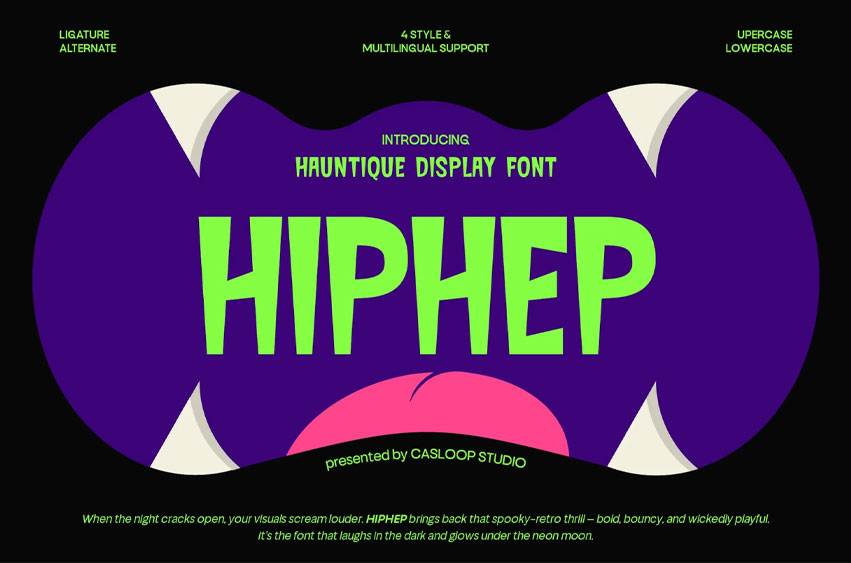
Hiphep Font
Hiphep Font is a haunted bold display font that brings spooky charm and monster energy into your designs. With rough textures, expressive angles, and quirky imperfections, HIPHEP feels alive — like a trick-or-treat spirit dancing under the moonlight. It’s bold, loud, and just the right amount of creepy, perfect for Halloween visuals, horror branding, and anything that loves a little chaos. Each letter in HIPHEP carries attitude — especially the R, P, and K — designed to look like cheeky little creatures. The font’s experimental vibe makes it stand out for projects that crave character and emotion, from Halloween posters to haunted café branding. It’s not just a font; it’s a spooky persona that grins back at you.
Personality * “Haunted” – spooky yet cute, like a mischievous ghost. * “Bold” – thick, expressive, and made to stand out. * “Rough” – textured edges that feel hand-torn and alive. * “Playful” – a fun take on fear, perfect for cheeky horror themes. * Feels like: trick-or-treat night, pumpkin lights, haunted playgrounds, experimental indie posters.
Best For * Halloween & spooky-themed branding. * Display headlines & horror movie titles. * Trick-or-treat packaging & merch. * Indie fashion & eerie event posters. * Haunted cafés or music visuals. * Compatible with: Adobe Illustrator, Photoshop, Affinity, Figma, Canva, Kittl.
Including (OTF, TTF, WOFF, and WOFF2) with 4 styles — Regular, Rough, Rough Inline, and Rough Shadow, HIPHEP adapts to every scary scenario. Multilingual Extended Latin support makes it global-ready, while its expressive forms bring every headline to (after) life. From jack-o’-lantern posters to ghostly brand marks — HIPHEP is here to haunt your designs most delightfully.